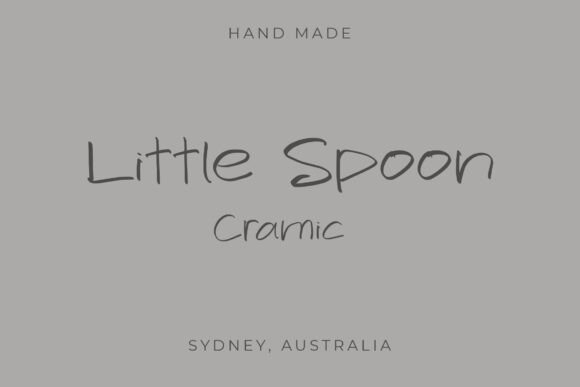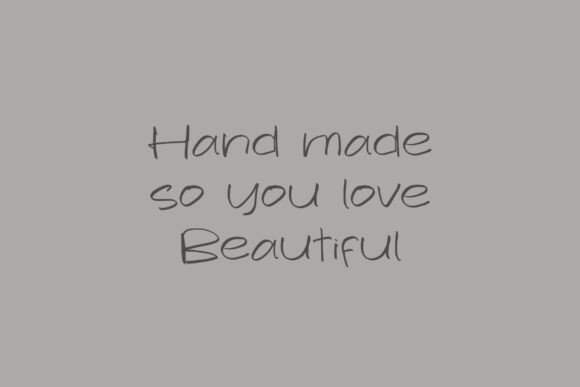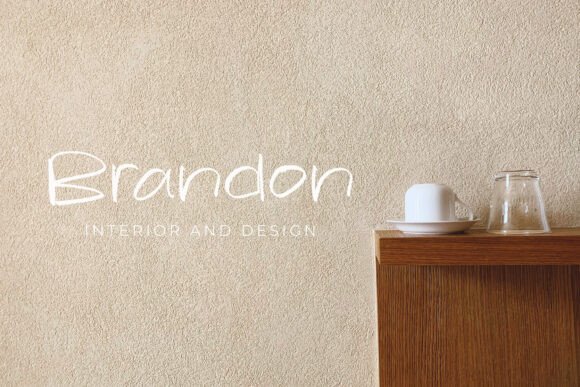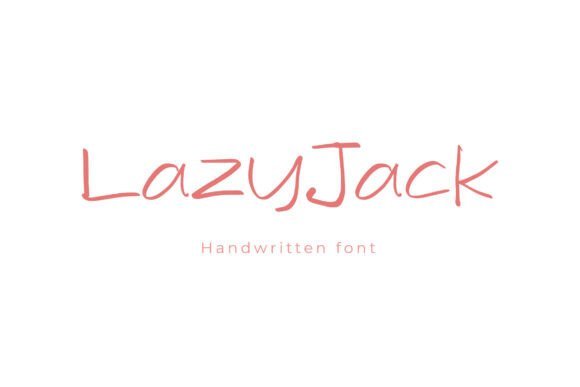
Lazy Jack is an expressive handwriting font with a rough hand brush style, designed to give your projects a raw, creative edge.
Its unique character shapes make it perfect for enhancing the visual appeal of branding, packaging, posters, and more Lazy Jack adds a distinct, handcrafted feel to any design.
Lazy Jack Font offers exceptional quality and versatility, making it a valuable addition to your design toolkit. Whether you’re creating for personal projects or commercial use, Lazy Jack Font delivers professional results.